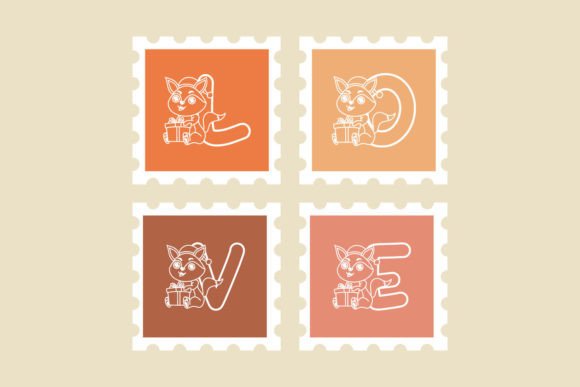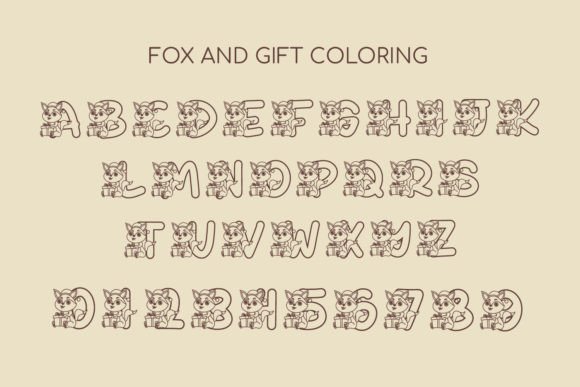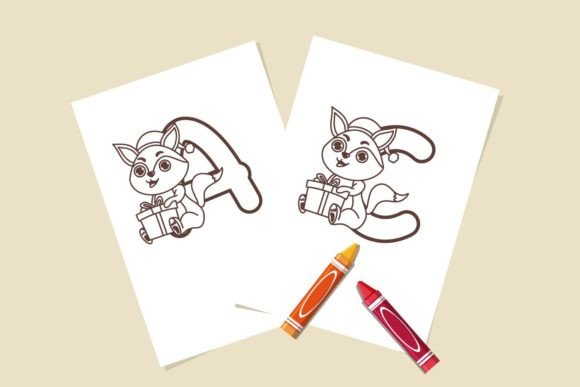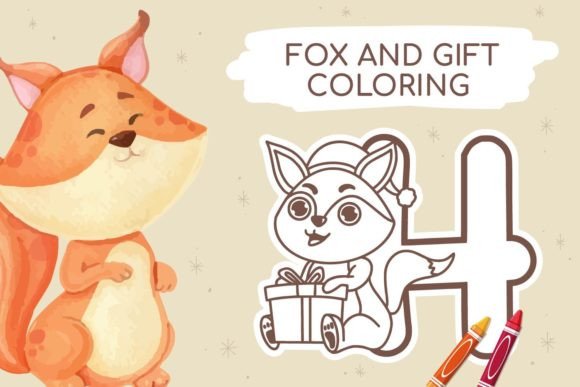
Introducing Fox and Gift Coloring Font: Add a Touch of Whimsy to Your Designs
Are you tired of using the same old fonts in your designs? Do you want to add a touch of fun and playfulness to your creations? Look no further than the Fox and Gift Coloring Font! This adorable font is perfect for designers and crafters who want to bring a sense of joy and whimsy to their work.
What is Fox and Gift Coloring Font?
Fox and Gift Coloring Font is a cute and fun decorative font that represents the carefree spirit of creativity. This font is designed to add a playful touch to your designs, making it perfect for projects that require a dash of personality. With its unique and quirky style, Fox and Gift Coloring Font is sure to make your designs stand out from the crowd.
Why Use Fox and Gift Coloring Font?
There are many reasons why designers and crafters love using Fox and Gift Coloring Font in their work. Here are just a few:
• Adds a touch of fun and playfulness: This font is perfect for designs that require a lighthearted and carefree feel. Whether you’re creating a children’s book, a craft project, or a social media graphic, Fox and Gift Coloring Font is sure to bring a smile to your audience’s face.
• Unique and eye-catching: With its distinctive style, Fox and Gift Coloring Font is sure to grab attention and make your designs stand out. Whether you’re competing in a crowded market or just want to create something that pops, this font is the perfect choice.
• Versatile: Fox and Gift Coloring Font can be used in a wide range of design projects, from digital graphics to print materials. Whether you’re creating a logo, a poster, or a card, this font is sure to add a touch of personality to your work.
How to Use Fox and Gift Coloring Font
Using Fox and Gift Coloring Font in your designs is easy! Here are a few tips to get you started:
• Pair with other fun fonts: For a playful look, try pairing Fox and Gift Coloring Font with other fun and decorative fonts. This will create a unique and eye-catching combination that’s sure to grab attention.
• Use in digital graphics: Fox and Gift Coloring Font is perfect for digital graphics, such as social media posts, blog headers, and email newsletters. Try using it to add a touch of personality to your online presence.
• Add to print materials: This font is also great for print materials, such as posters, flyers, and cards. Try using it to create eye-catching headlines or add a touch of whimsy to your designs.
Tips and Tricks for Working with Fox and Gift Coloring Font
Here are a few tips and tricks to help you get the most out of Fox and Gift Coloring Font:
• Experiment with colors: Fox and Gift Coloring Font looks great in a variety of colors. Try experimenting with different hues and combinations to find the perfect look for your design.
• Play with sizes: This font looks great in a range of sizes, from small and delicate to large and bold. Try experimenting with different sizes to find the perfect fit for your design.
• Don’t be afraid to get creative: Fox and Gift Coloring Font is all about having fun and being creative. Don’t be afraid to experiment and try new things – it’s all part of the design process!
Font Name Fox and Gift Coloring Font
Author Typefar
Fox and Gift Coloring Font is a fun and playful decorative font that’s perfect for designers and crafters who want to add a touch of whimsy to their work. With its unique and eye-catching style, this font is sure to make your designs stand out from the crowd. Whether you’re creating digital graphics, print materials, or just want to add a touch of personality to your designs, Fox and Gift Coloring Font is the perfect choice. So why not give it a try and see how it can bring your designs to life?